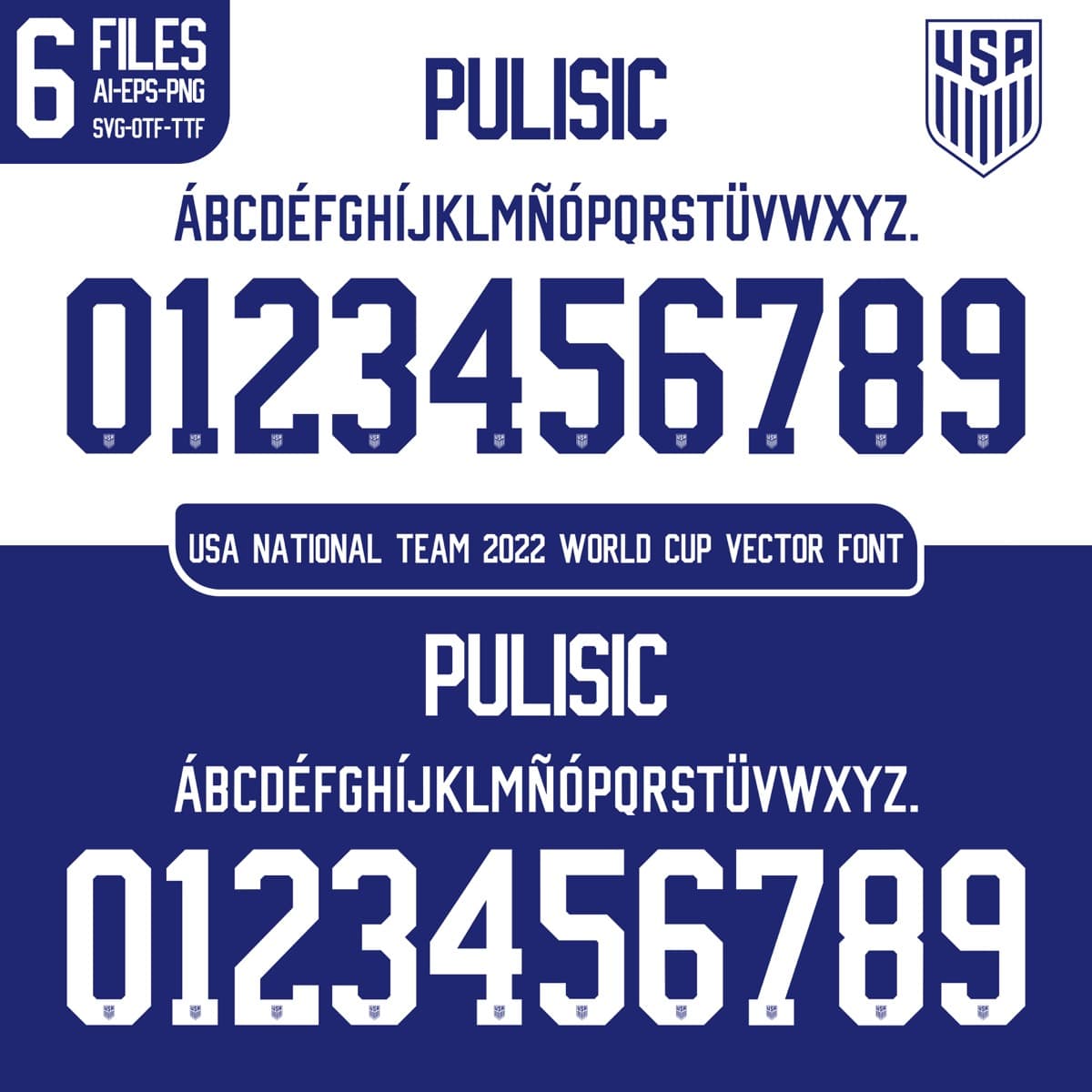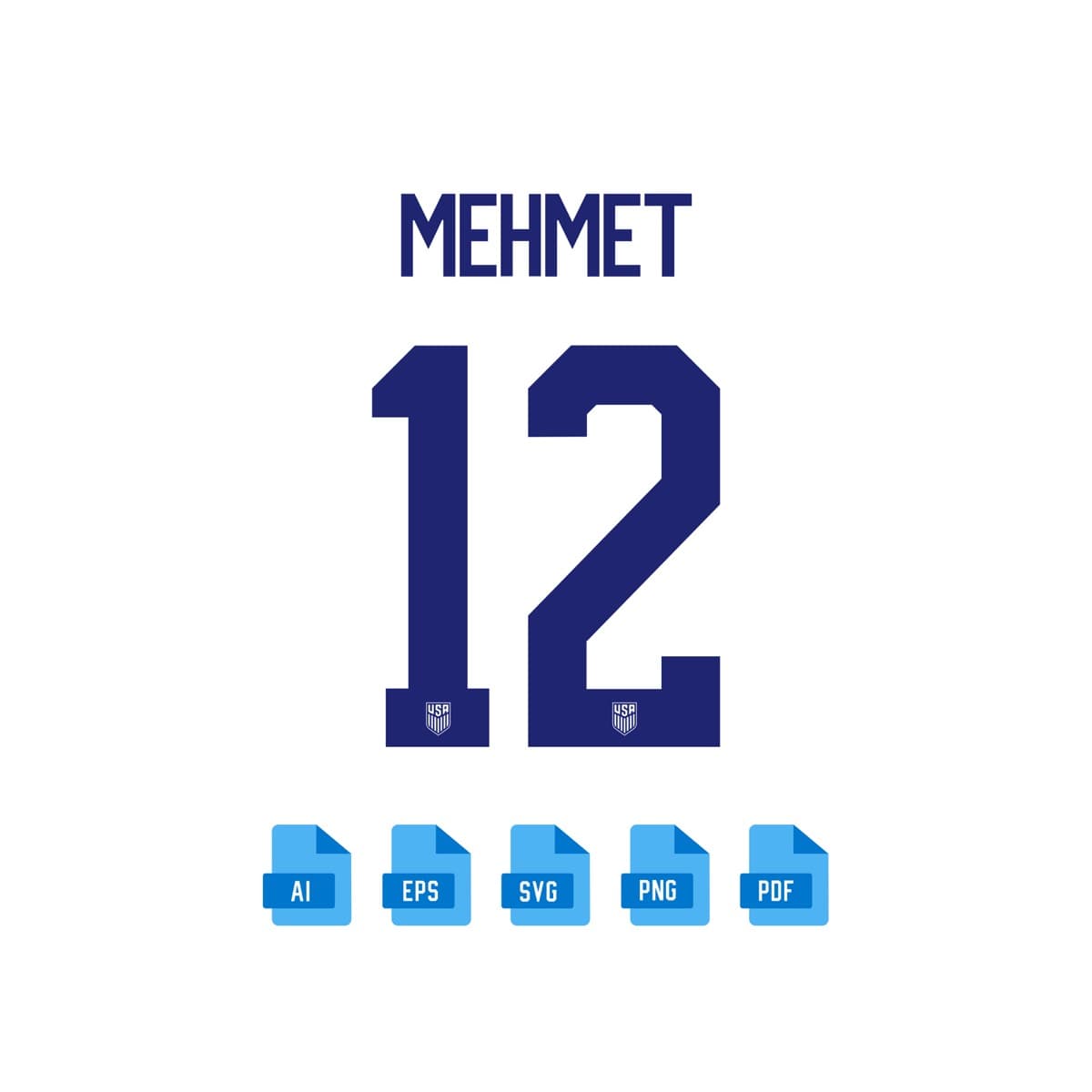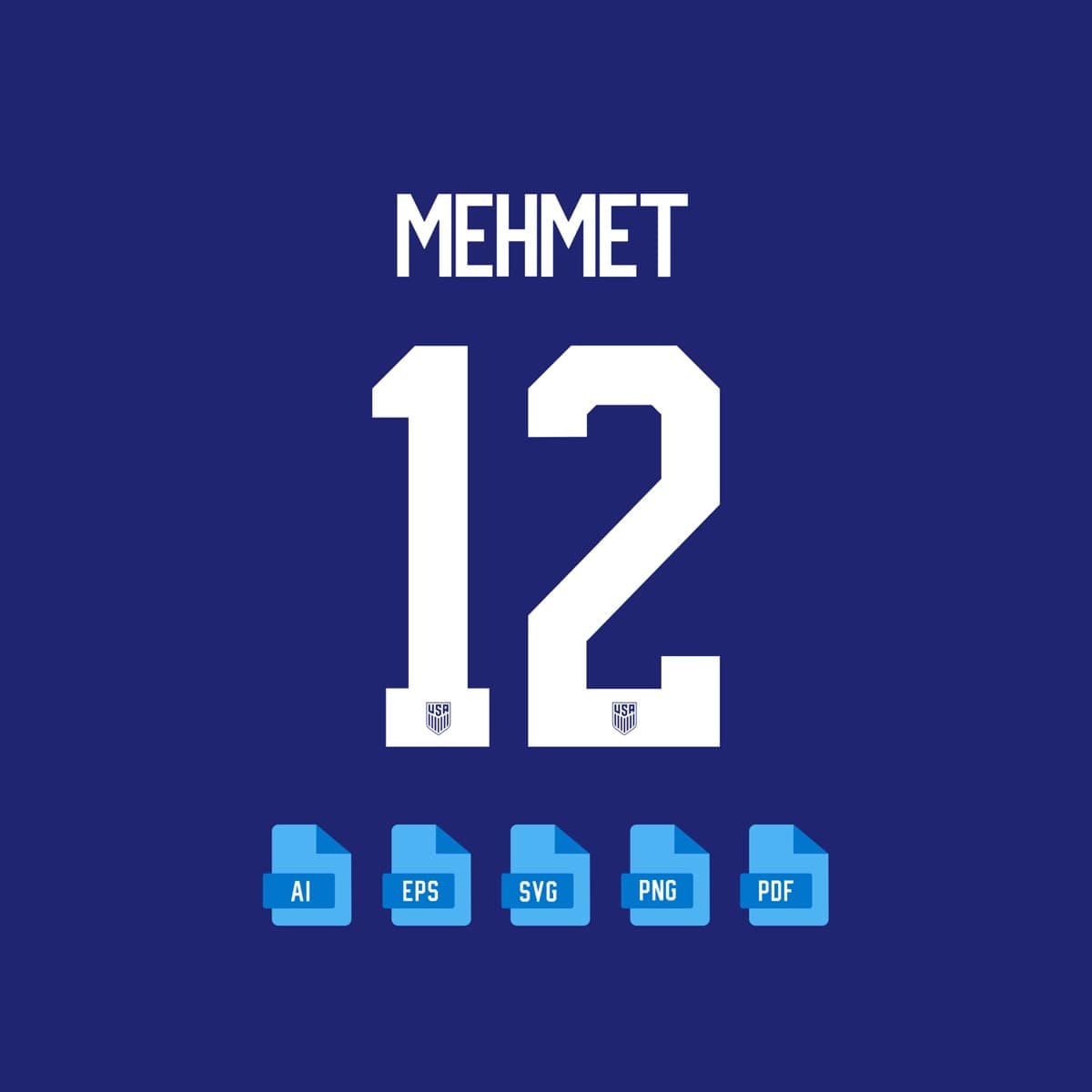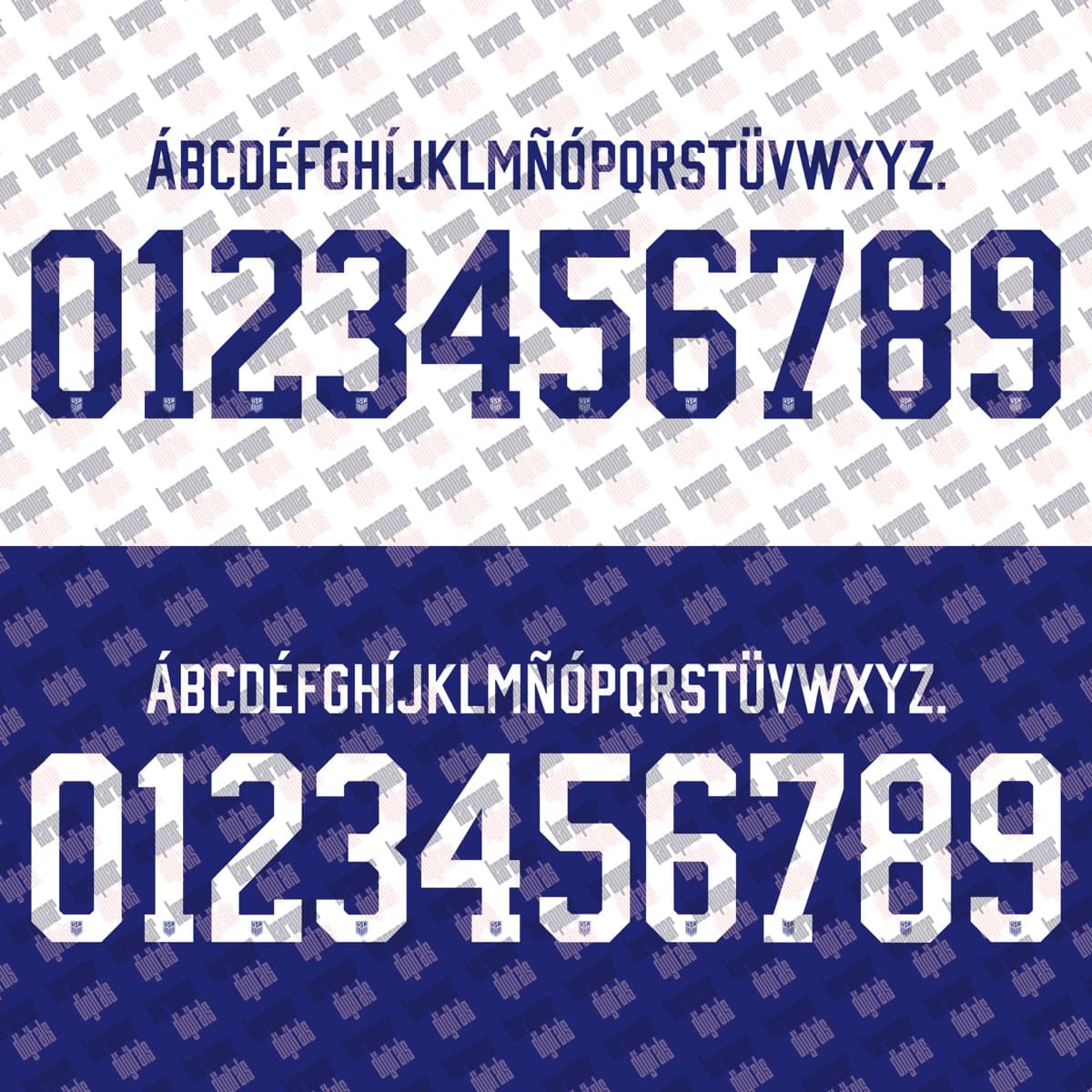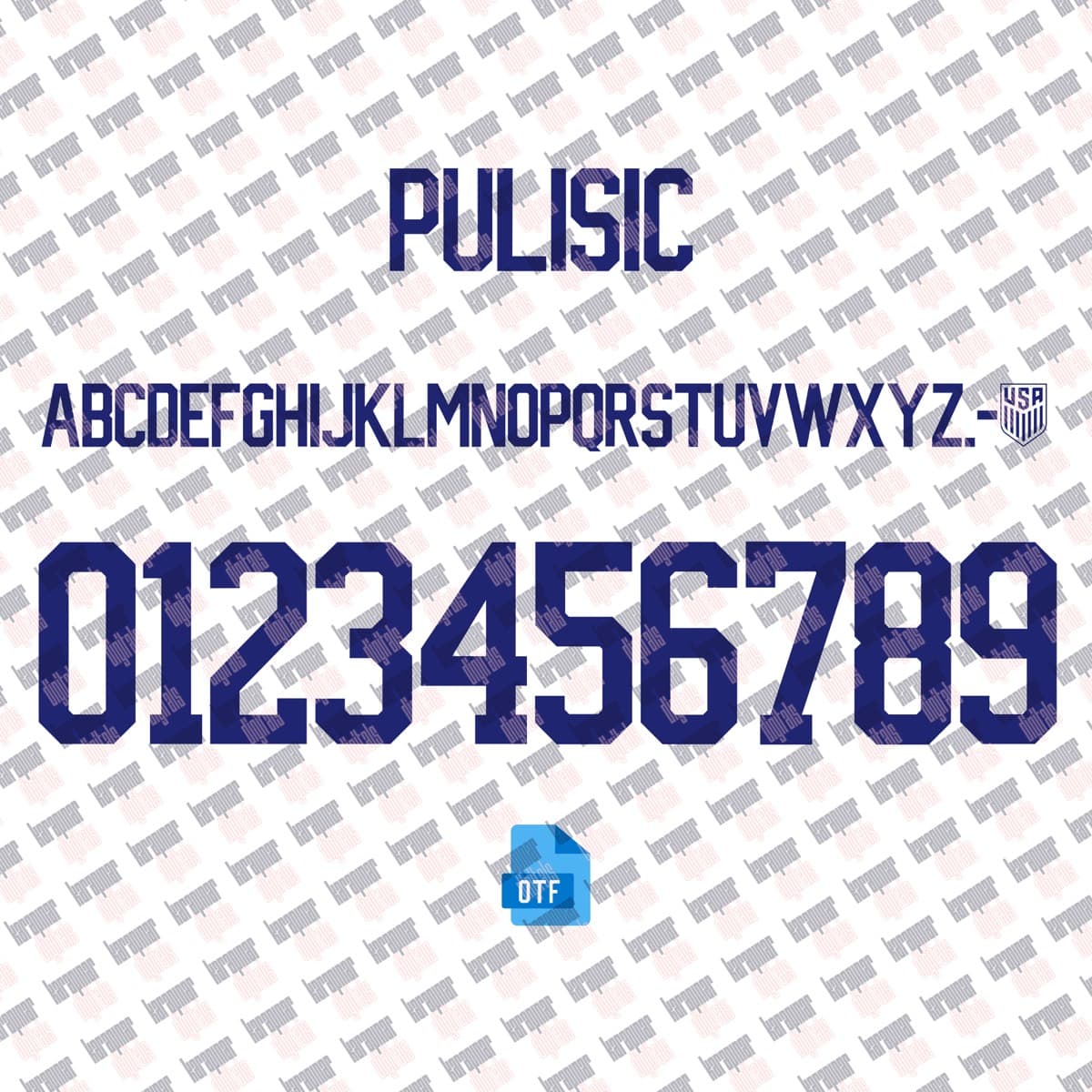
USA 2022
USA National Team · 2022
USA 2022
A set inspired by the USA National Team 2022 jersey typography, with a name and number system redrawn for print and screen. Original curves, consistent weight and a complete 0–9 numeral family.
Does it include lowercase?
Jersey sets focus on uppercase + numerals; the glyph map shows exactly what this set includes.